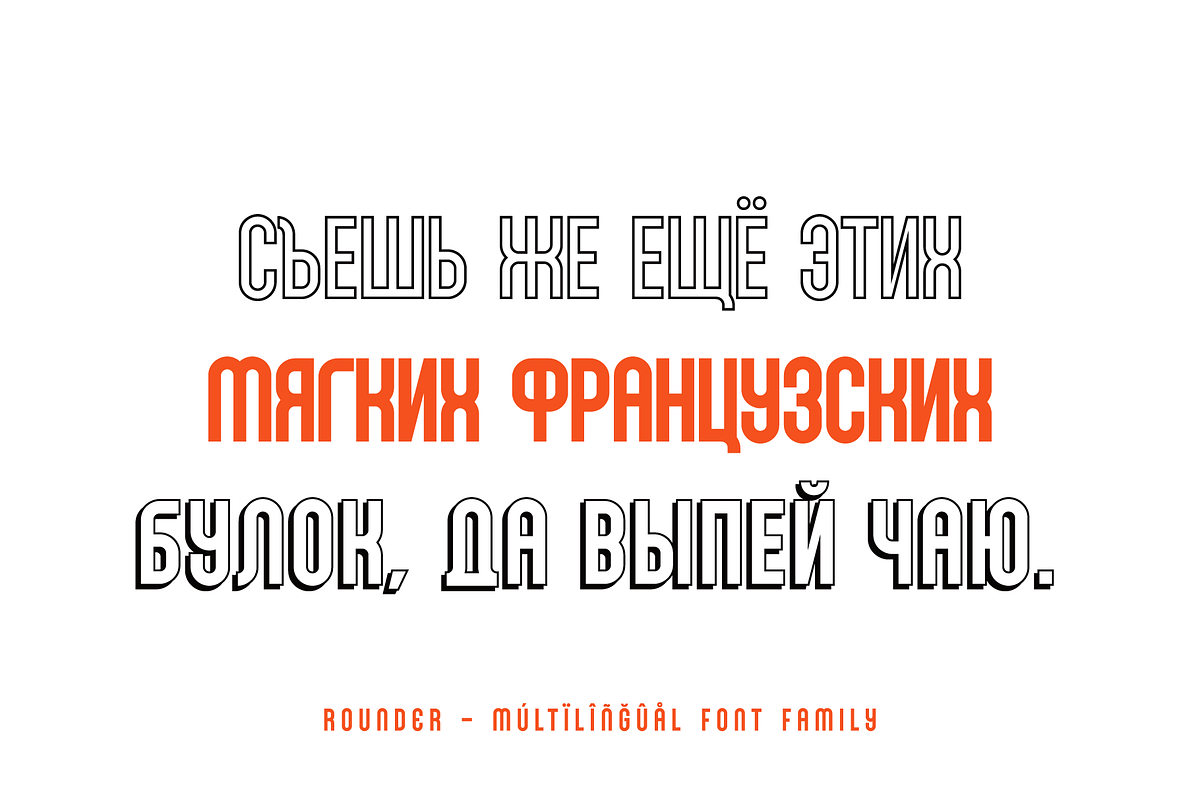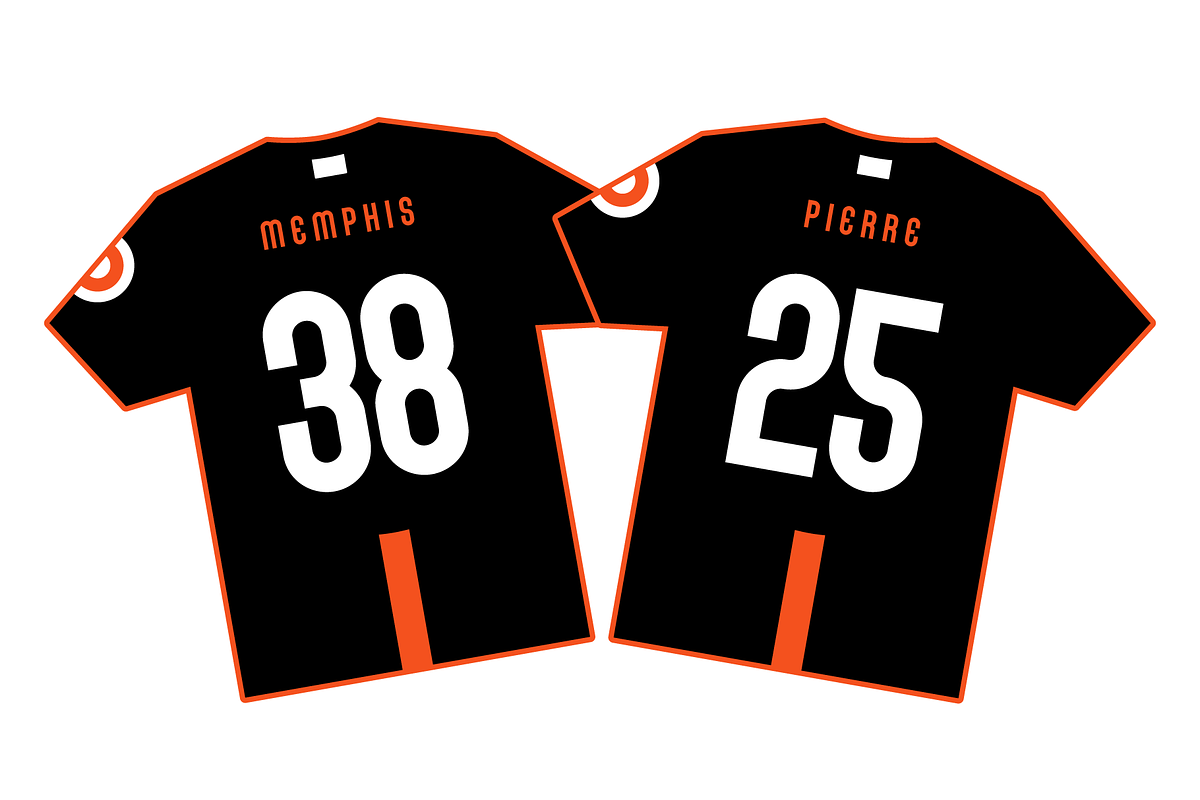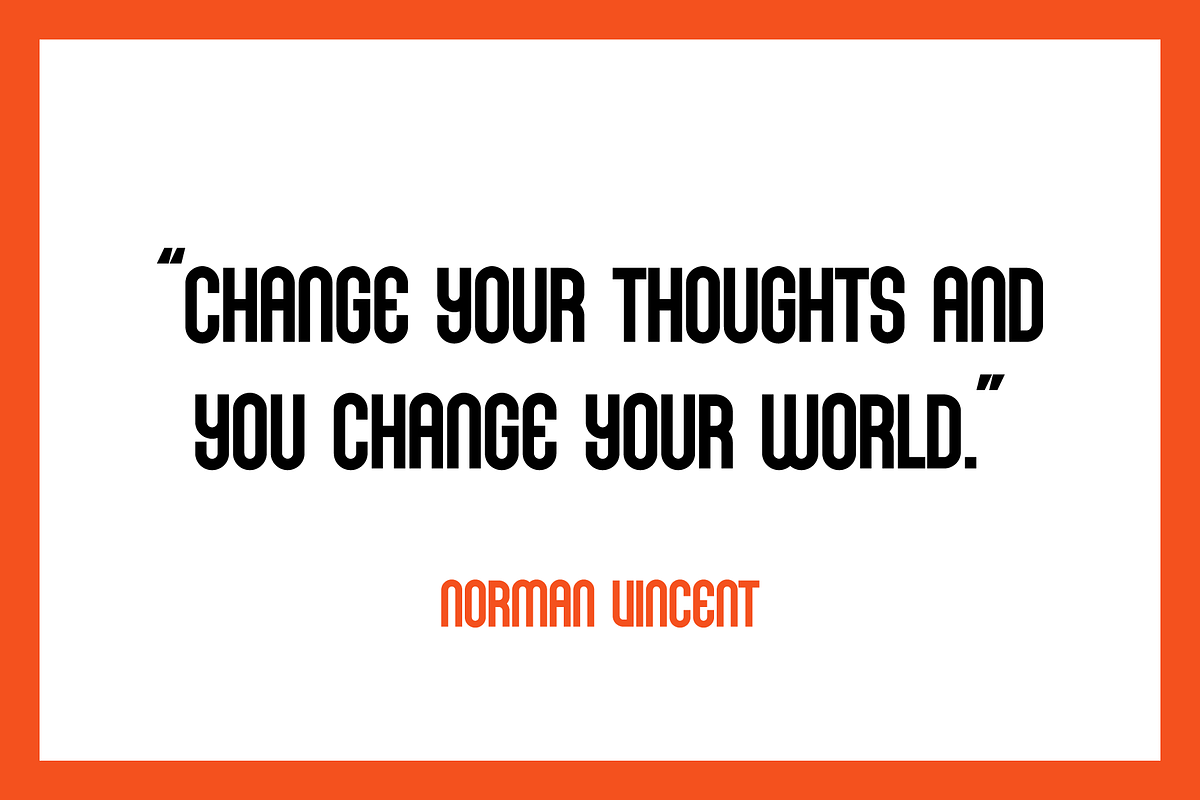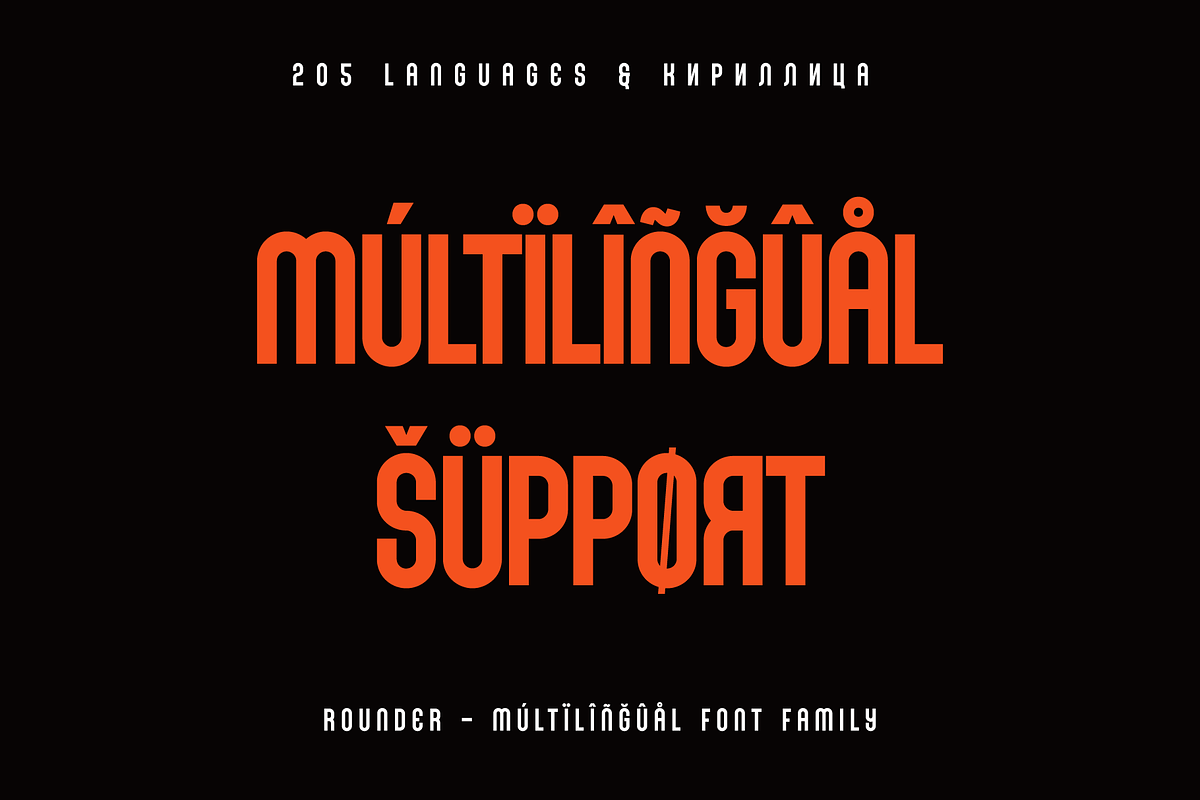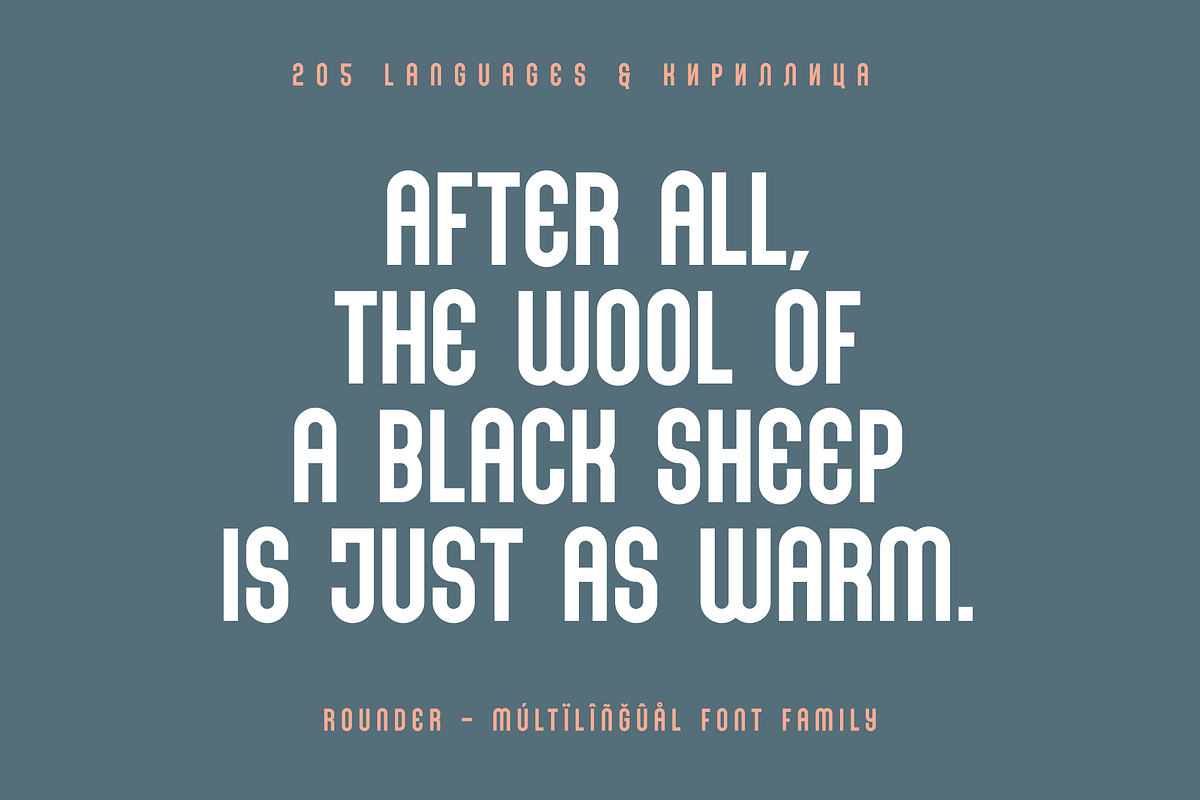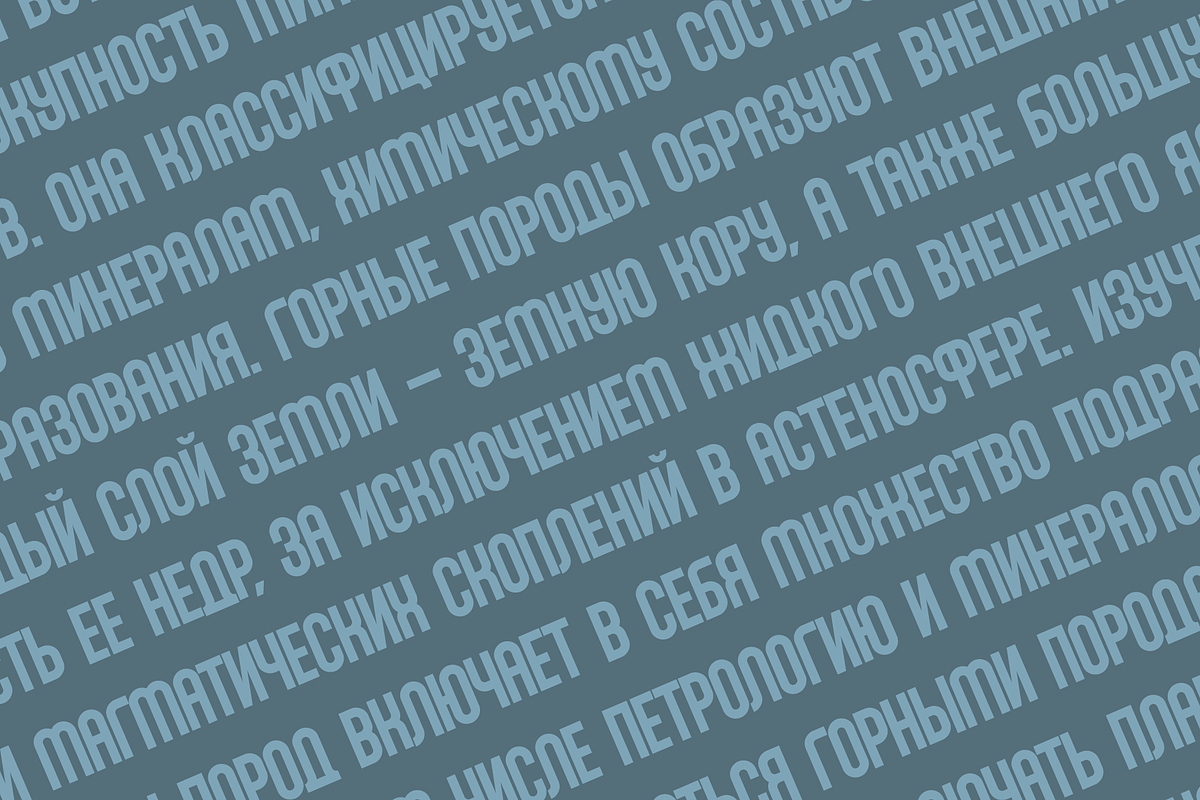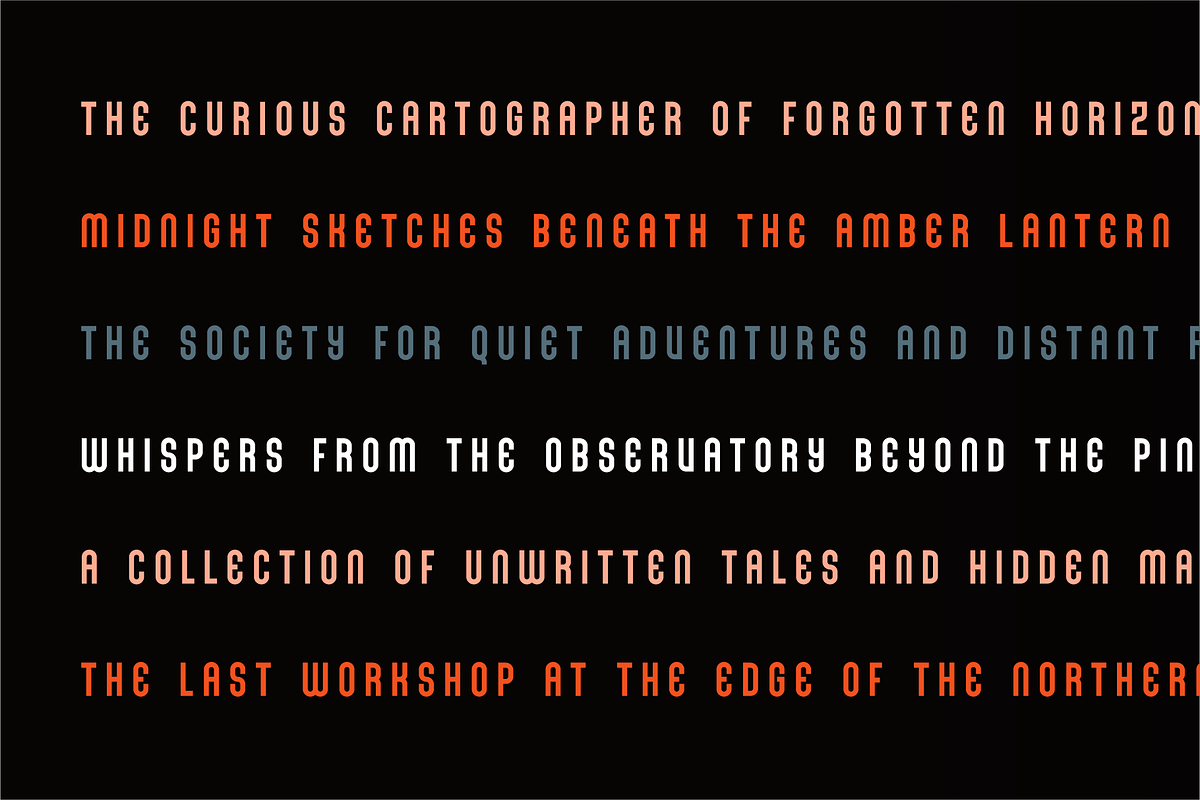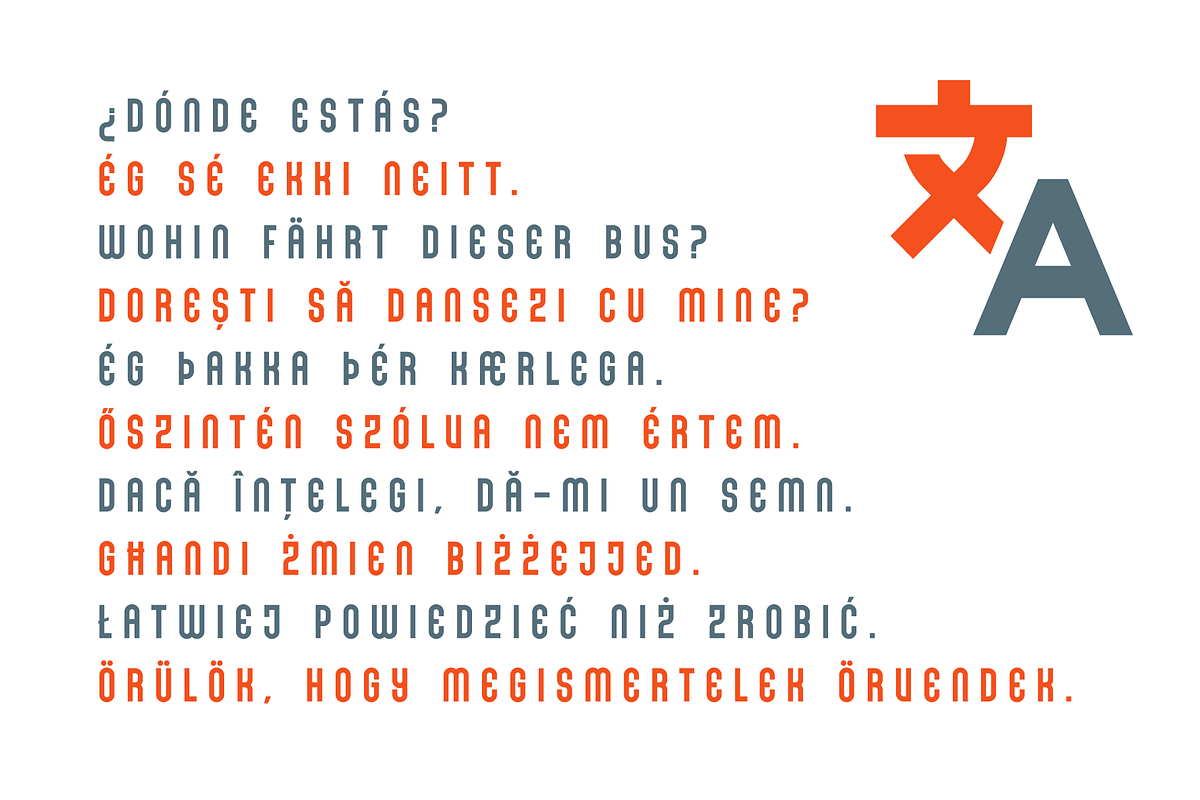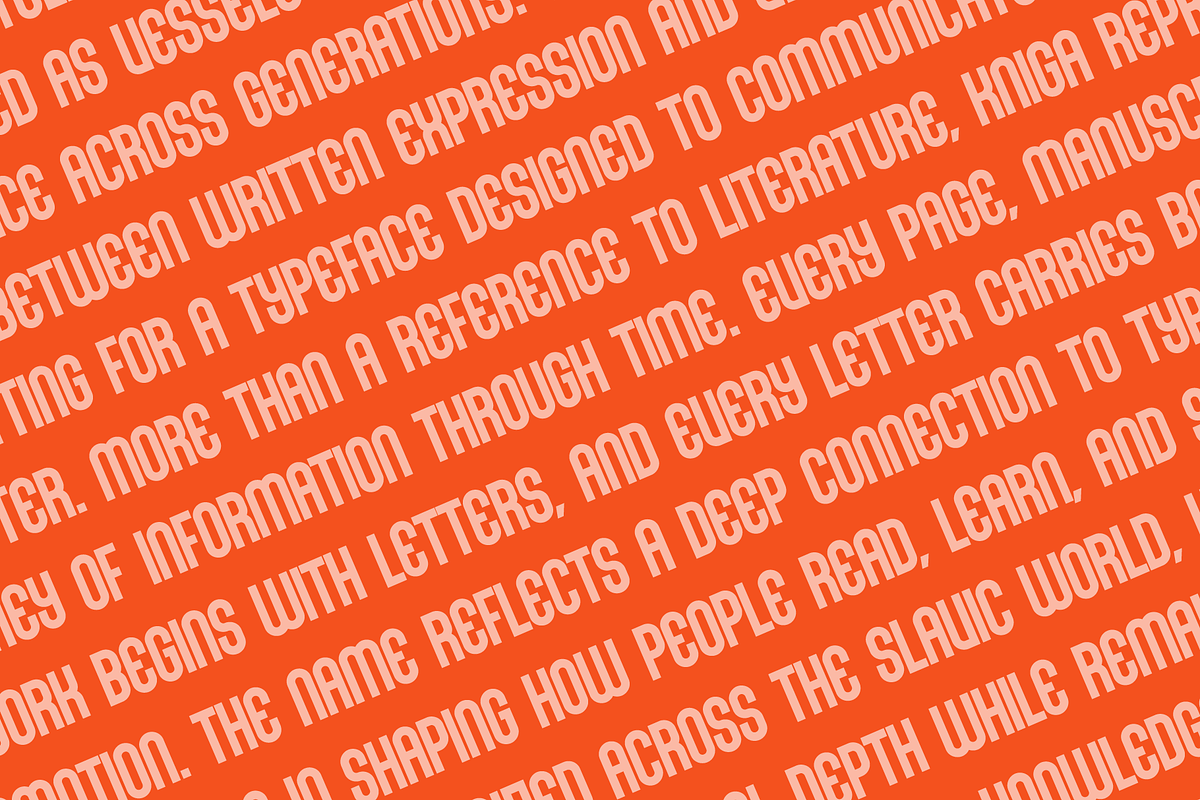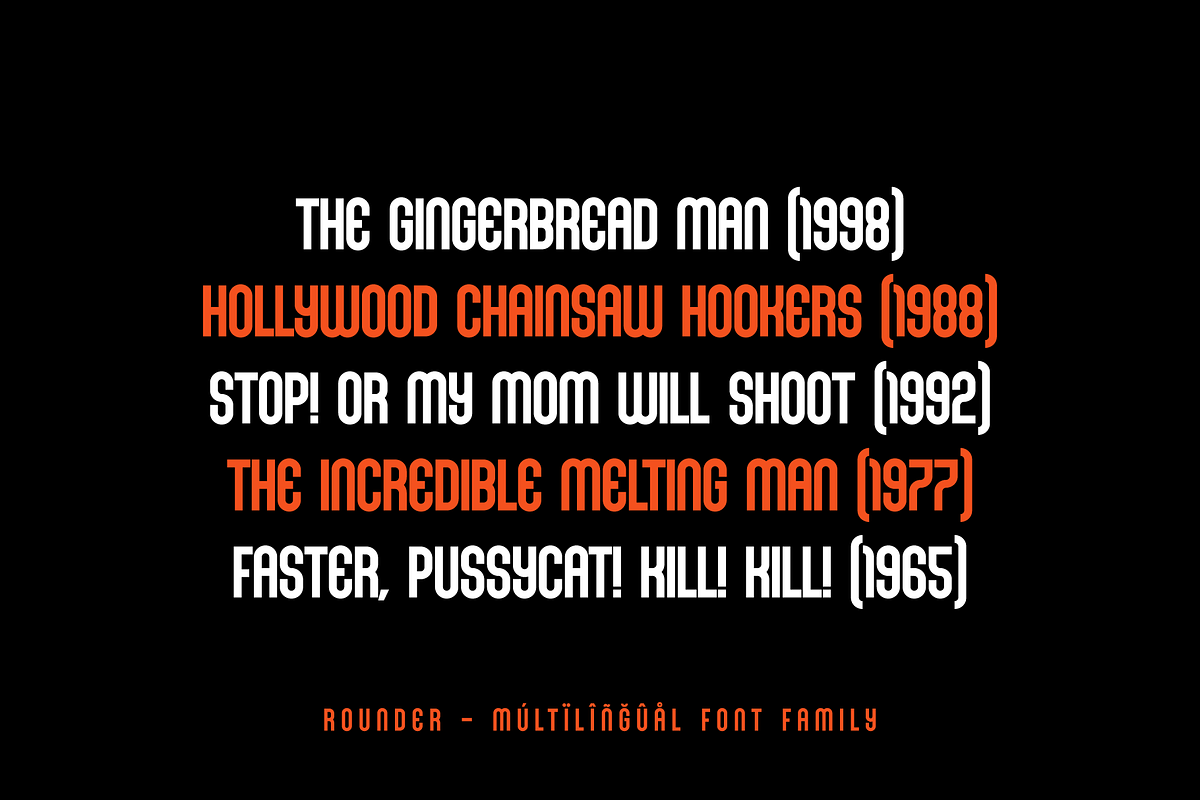
Rounder - Geometric Sans Serif
Rounder is a bold geometric sans serif built around a distinctive combination of rigid construction, rounded terminals, and tightly controlled geometric forms. Its letters are tall, compact, and highly graphic, creating a strong visual rhythm while maintaining a surprisingly clean and coherent appearance.
The design balances hard-edged geometric structure with rounded, almost tubular curves. Vertical stems remain powerful and consistent, while arches, bowls, and terminals introduce a softer character. This contrast gives Rounder its distinctive identity: futuristic and architectural without becoming overly mechanical.
A particularly recognizable feature is the way the rounded construction interacts with sharp geometric cuts and unusual internal shapes. Characters such as A, B, C, G, R, S, U, W, X, Y, and Z create a strong display personality, while the numerals follow the same compact, modular language. The result is a typeface that feels especially effective at large sizes, where its construction and details become immediately visible.
Rounder includes 60 instances, providing an extensive collection of stylistic variations. Alongside the core Regular and Italic styles, the family includes Circular, Rounded, Edgy, Aged, Rough, Outline, Inline, Shadow, Rimmed, and combined treatments such as Inline Shadow and Rimmed Shadow. These variations allow the same underlying design to move between clean typography, distressed graphics, dimensional lettering, and more experimental display compositions.
The Circular and Rounded versions push the softer side of the design, emphasizing smooth curves and a more approachable geometric appearance. Edgy introduces a sharper and more angular interpretation, while Aged and Rough add texture and an imperfect printed character. Inline, Outline, Rimmed, Shadow, Inline Shadow, and Rimmed Shadow provide additional tools for creating layered and dimensional typography without requiring separate graphic treatments.
With 549 glyphs and Cyrillic & Latin support, Rounder is designed for multilingual display typography as well as Latin-based projects. Its OpenType features include localized forms for multiple languages and Cyrillic writing systems, together with fractions, ordinals, superscripts, subscripts, and stylistic alternates. This makes the family more versatile for professional typographic work than its highly distinctive display appearance might initially suggest.
Rounder is particularly well suited to posters, headlines, titles, logos, branding, editorial covers, packaging, music artwork, sports graphics, gaming interfaces, motion graphics, advertising, social media artwork, and futuristic visual identities. Its compact proportions make it effective when strong impact is required within limited horizontal space, while the extensive style selection makes it possible to build complete visual systems around a single typeface family.
Designed for both screen and print, Rounder works especially well when typography is treated as a graphic element. At large display sizes, its rounded geometry, unusual counters, and carefully constructed forms become a central part of the composition. The multiple outline, inline, rimmed, shadow, aged, and rough variations further extend its usefulness for expressive visual applications.
Rounder combines geometric precision, rounded construction, compact proportions, and experimental display character in one extensive 60-style family.